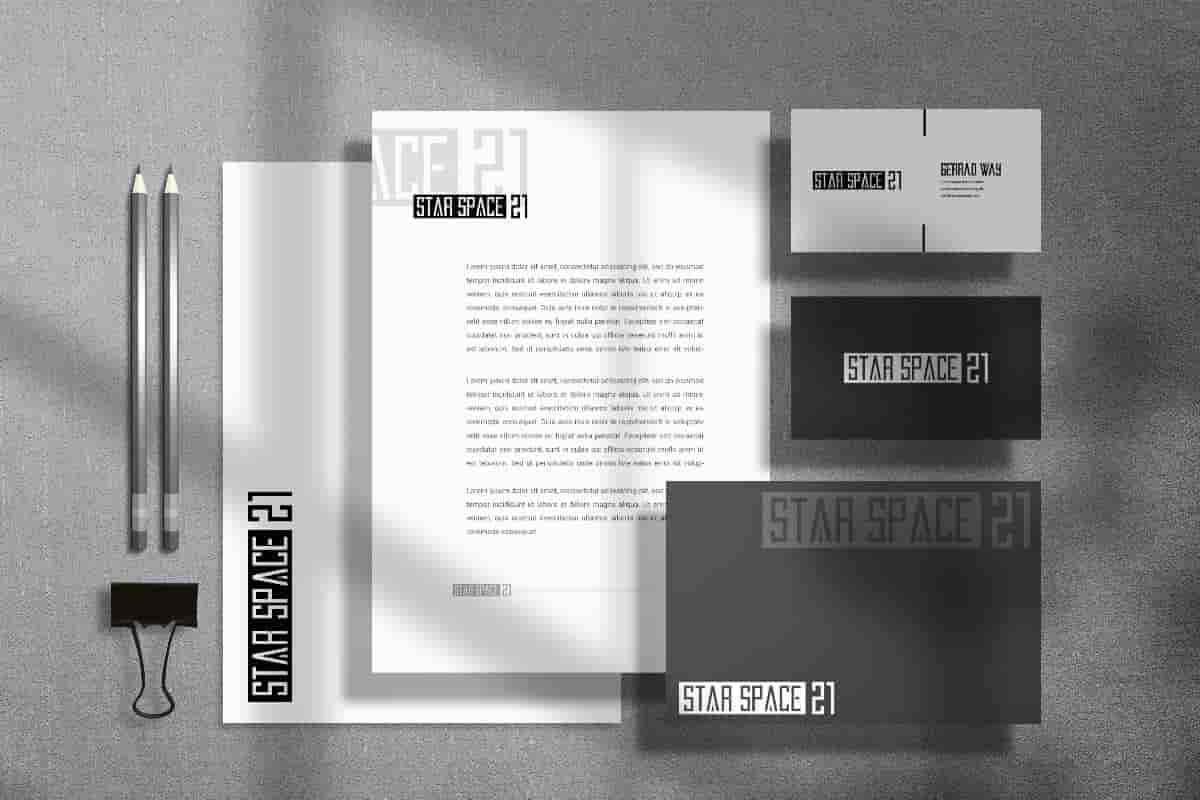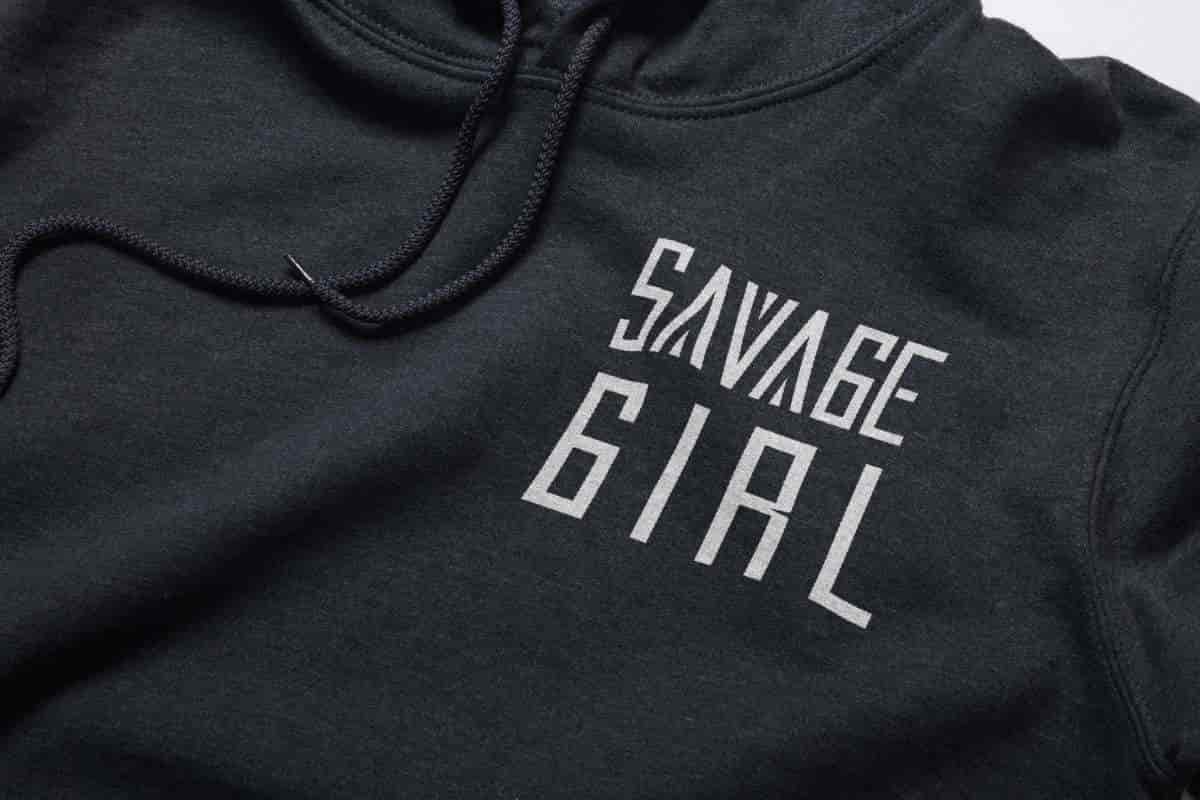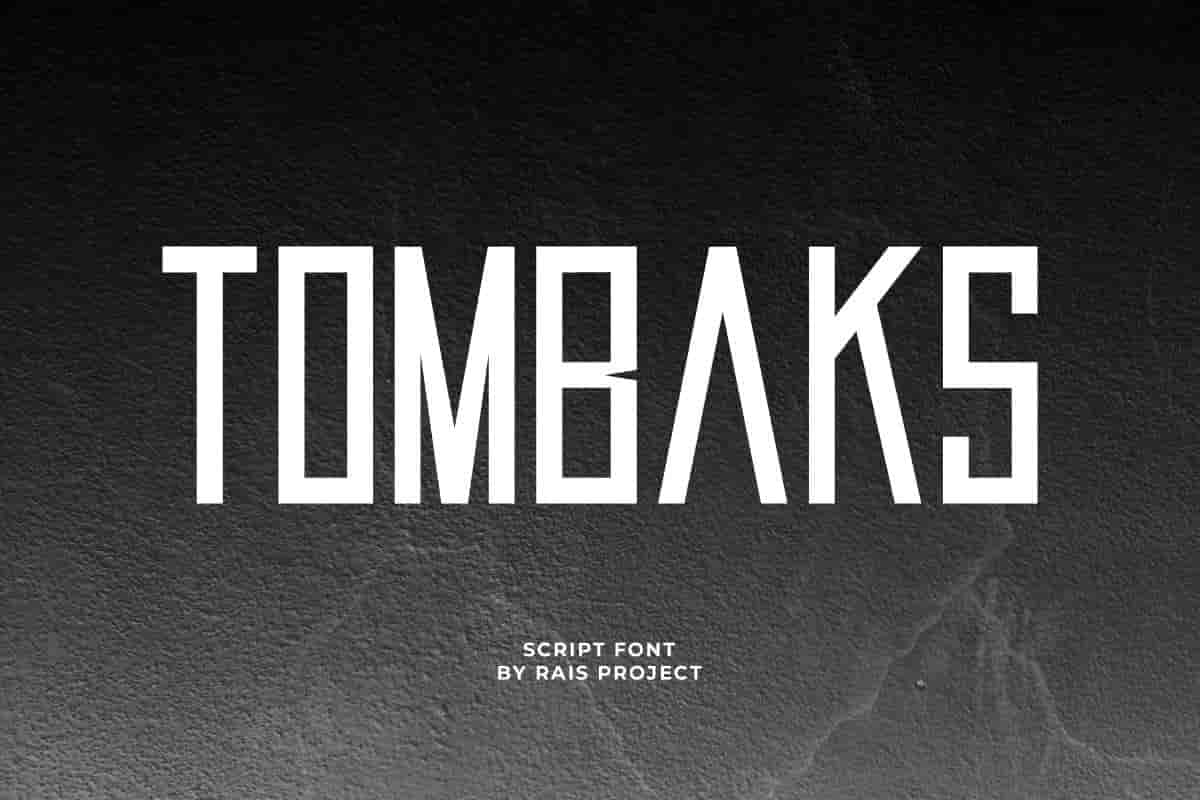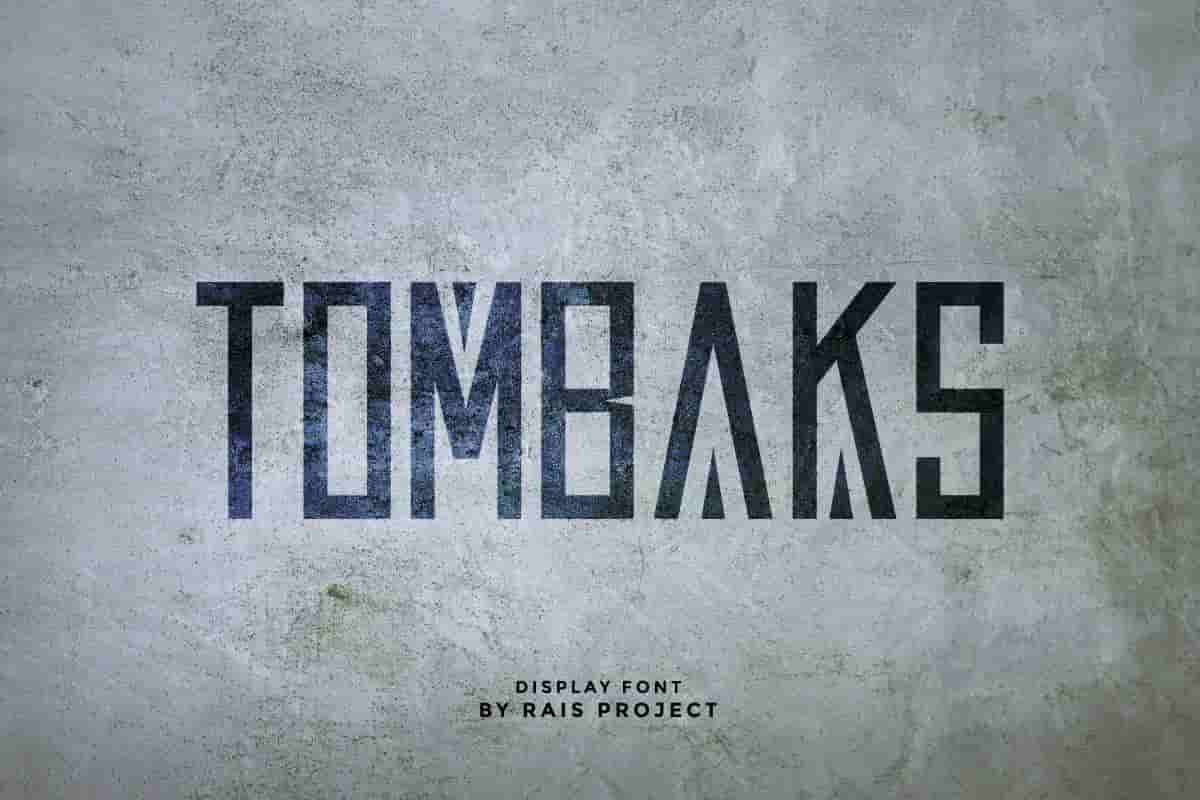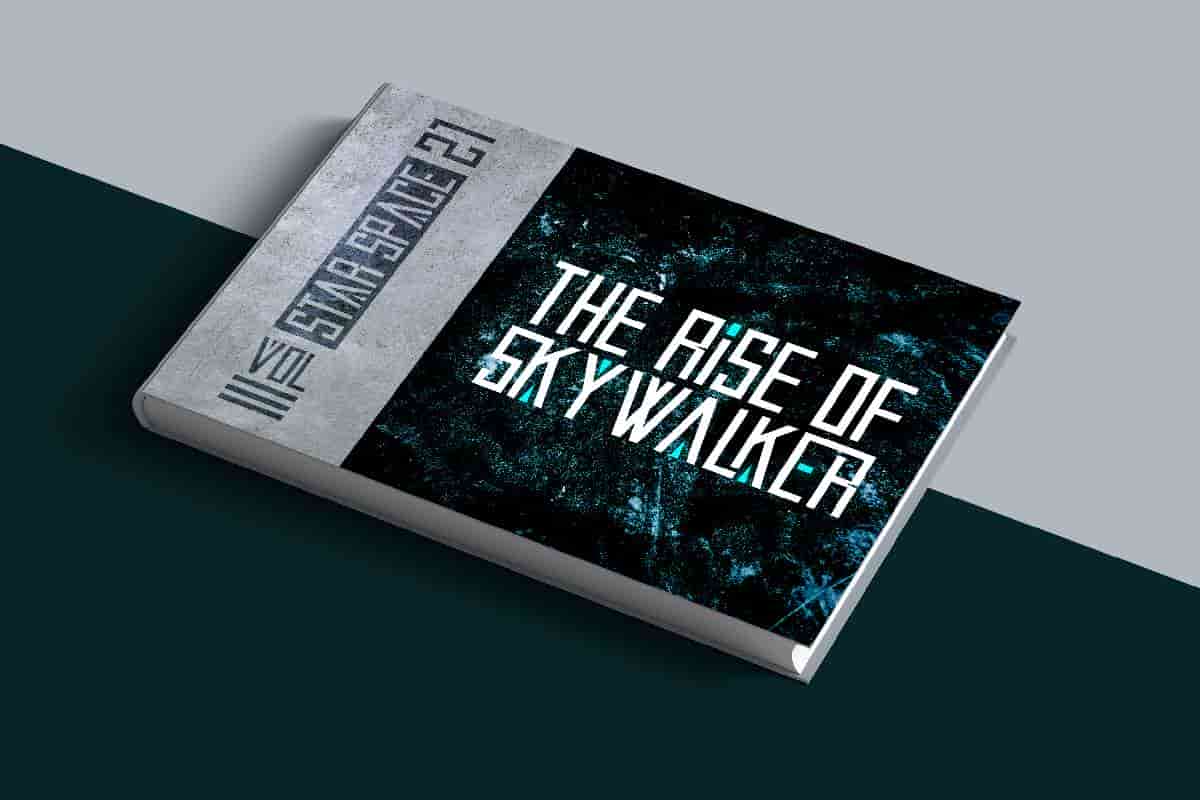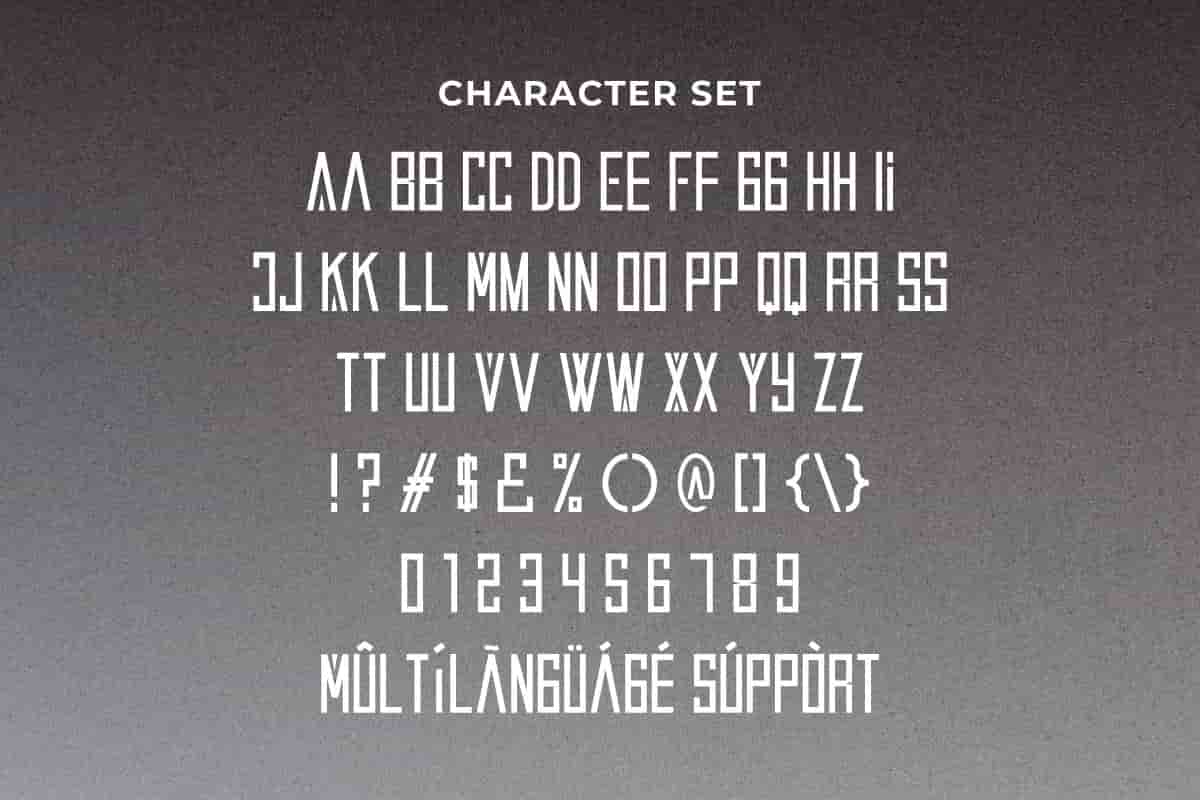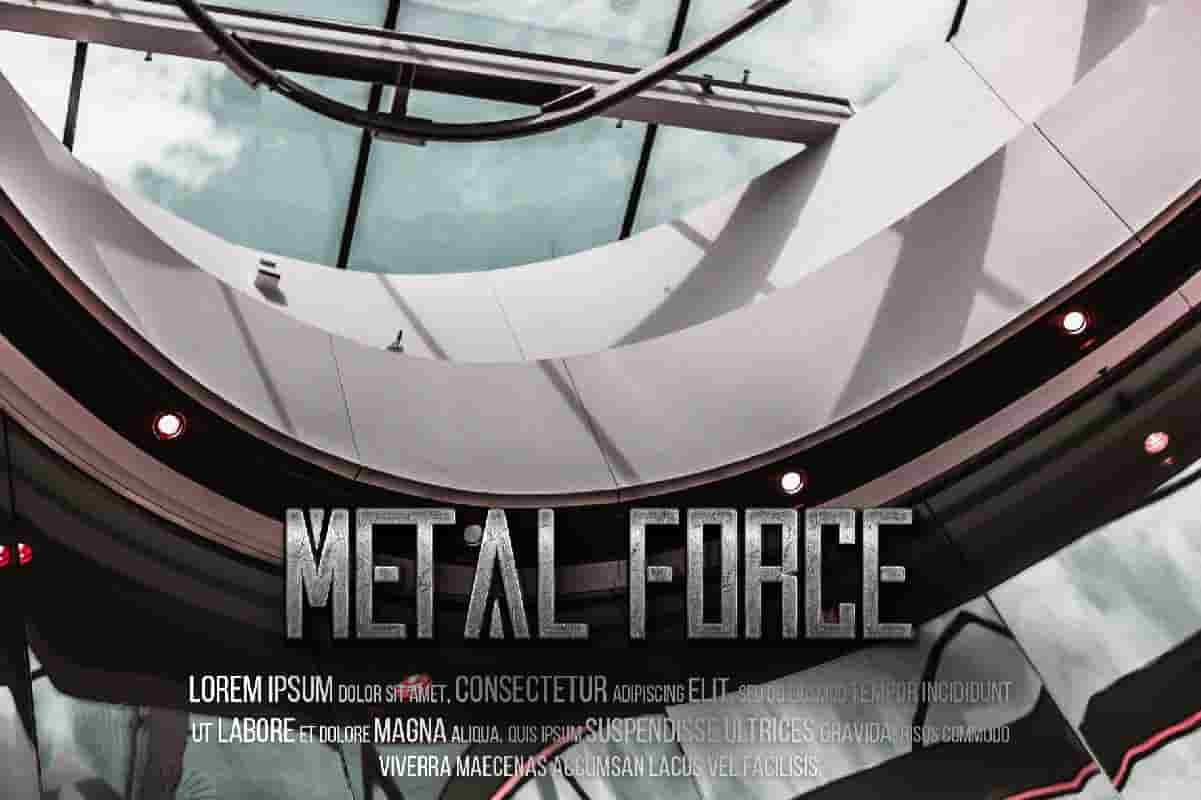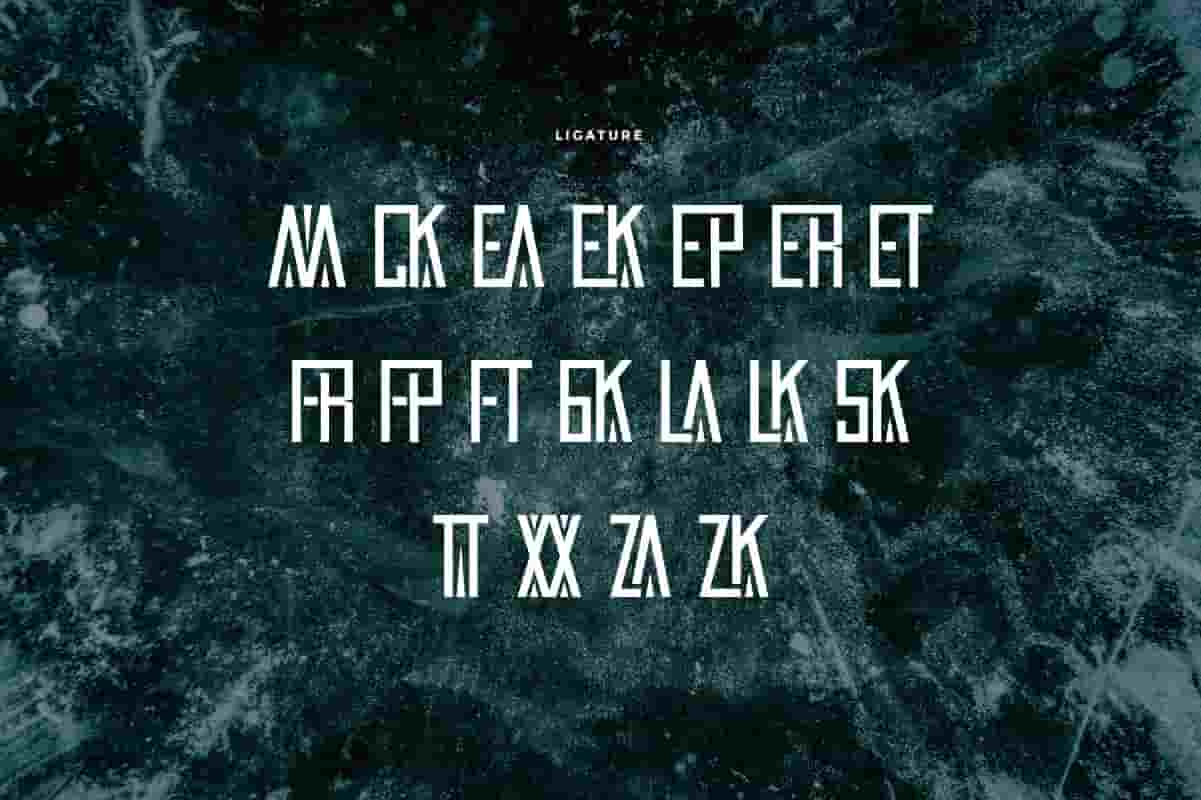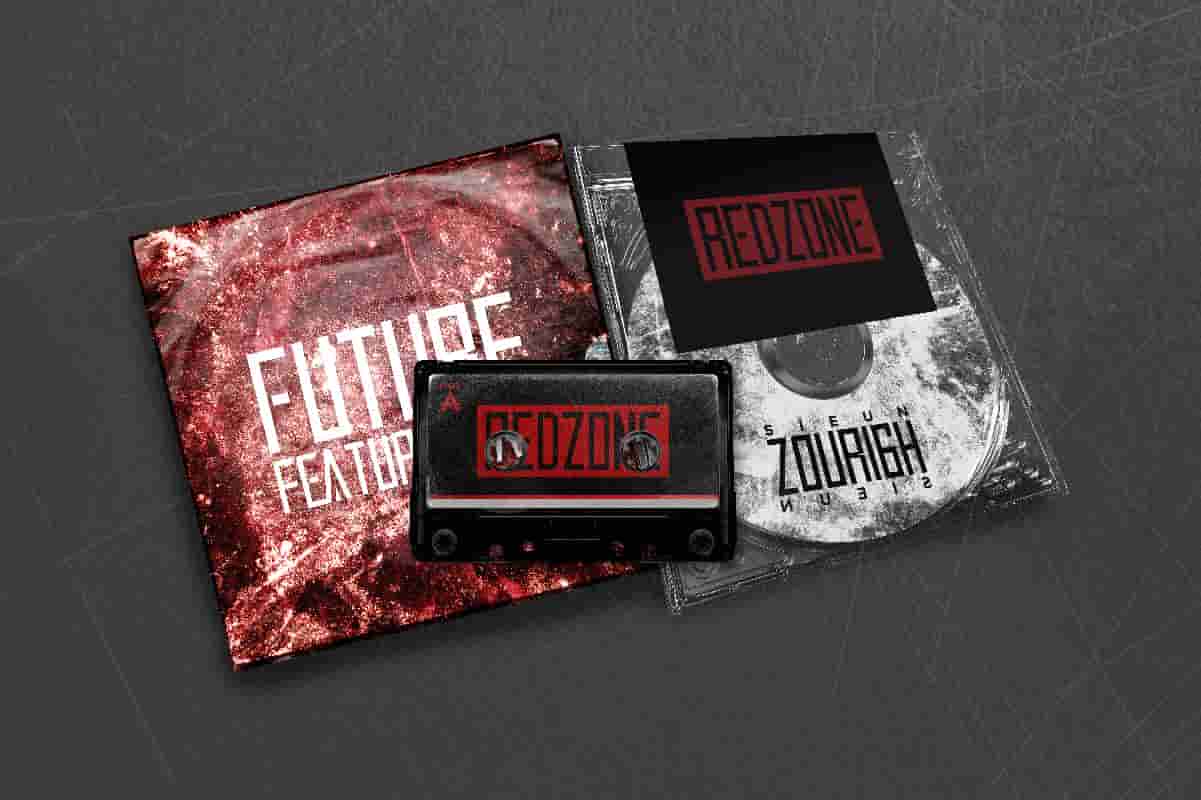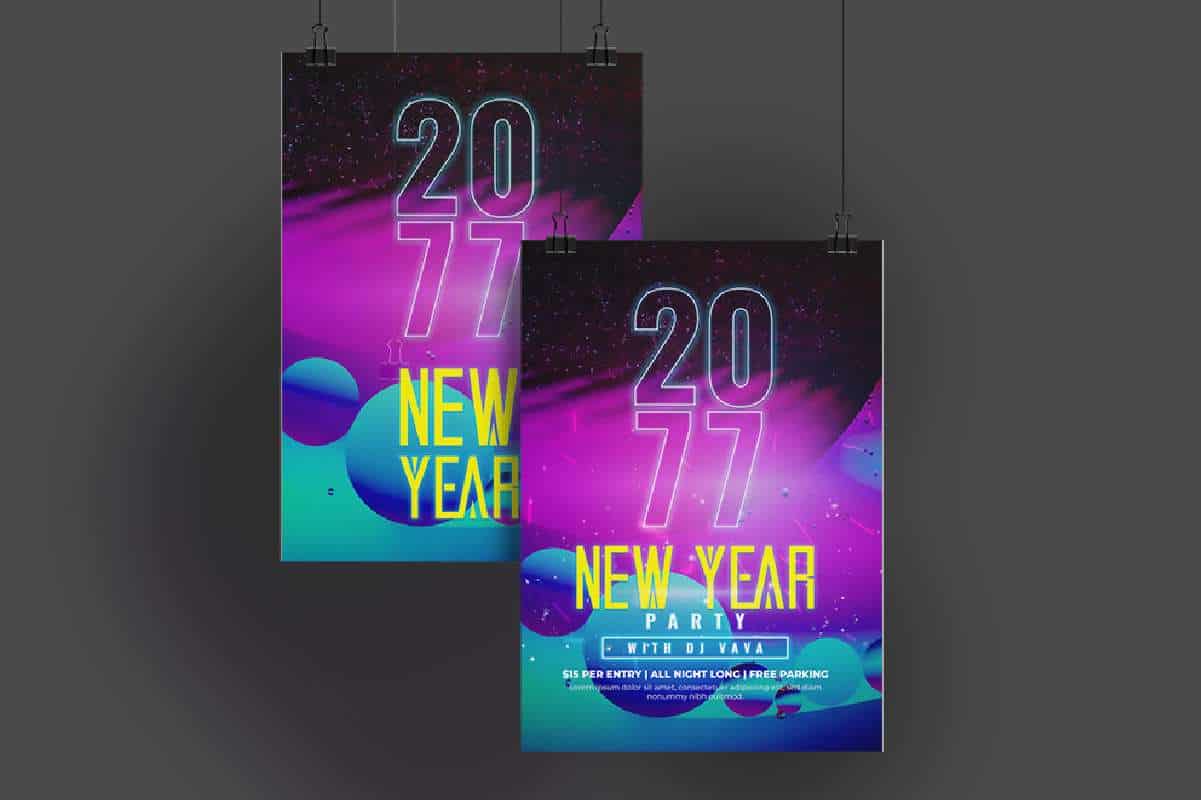
Tombaks Sans Serif Font
Tombaks Font is a display font family, designed by Rais Project, inspired from ancient war weapon. The font have awesome characters that will be great for Sport, Technology, Game, Magazine, Music, etc
Tombaks Font a display Sans Serif font family designed by RaisProject, inspired from ancient war weapon. You can see the demo font below. You can also input any word you want so you can see what it will look like :
Tombaks Font comes with unique character style that is solid, sporty, firm, modern, masculine and exclusive characters. It will be great for any your special projects including : headlines, promotion, events, branding, advertising, magazine, signage, invitation, stationery, social media posts, label, or and any projects that need unique strong style. The industries for this font is Startup, Automotive, Apps, Sports, Technology, Game, Magazine, Music, boxing etc. On the package You will get: